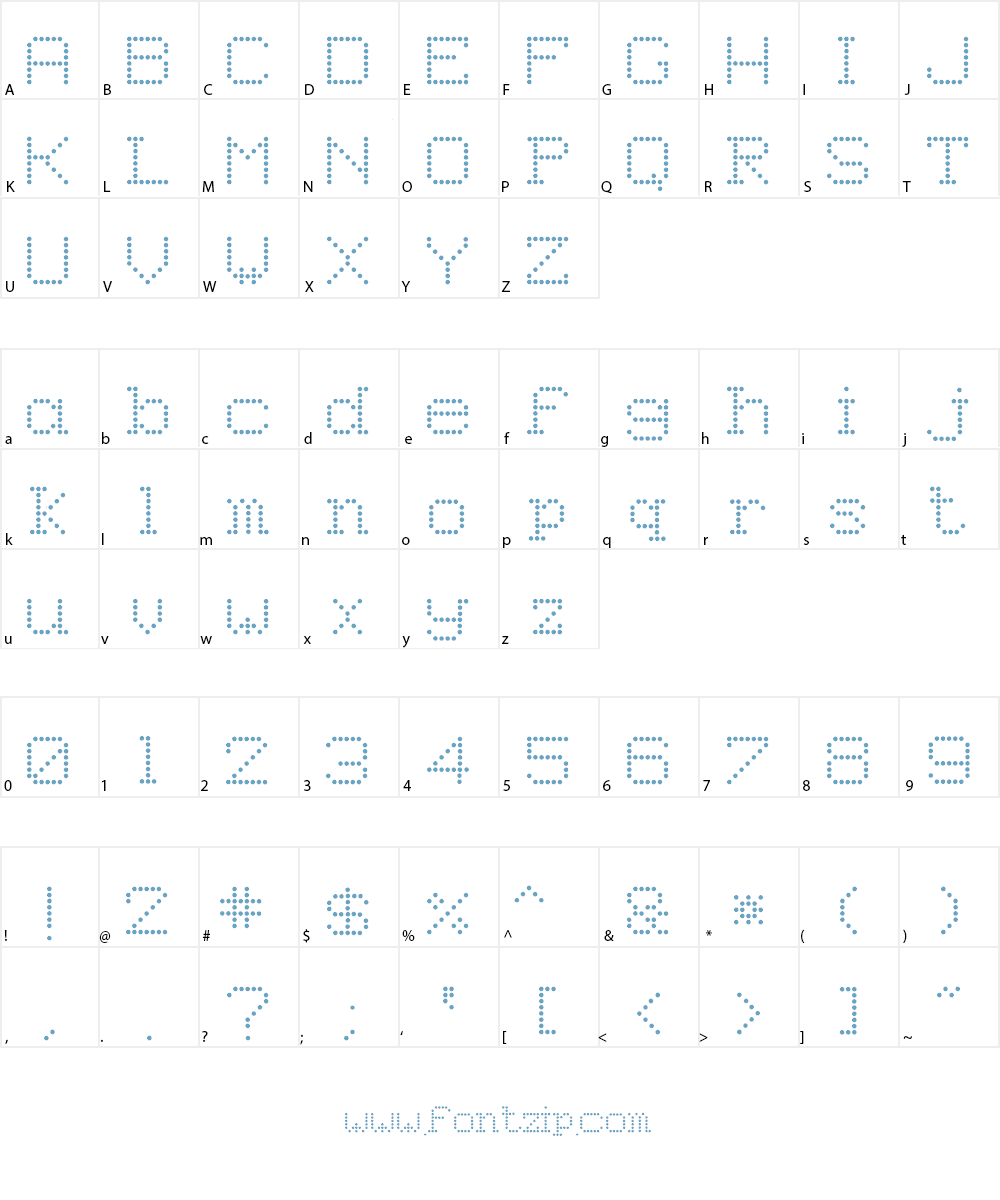
This font looks very much like the output of an old 8-Pin dot-matrix printer, like the Epson FX-80. Very interesting to re-create documents looking like "old" computers, or computerized bills.
Back in 1987, I was working with a now antique Apple IIe and a then brand new
Apple IIc, as well as an IBM-PC clone (Panasonic Senior Partner) on a project
that was to become MatchFont. That software allowed machines of the time to
use fonts on dot-matrix printers, such as the good old Epson FX-80 I had then,
or the Apple Imagewriter. Eventualy, MatchFont helped people to use fonts on
these rather slow printers, and to get unusual fonts, at least for these
character-based computers. Eventually, the printers got even slower, but the
results where, at least at the time, better than even a Mac.
To-day, these technological monsters are gone. But I still remember the long
hours passed on the 9x18 matrix of the MatchFont editor. I then created some
great marvels, such as Japanese, or a sideways font.
8-Pin Matrix reminded me of that good'ol time, as while creating it, I found
back the familiar limitations of that format.
I hope you will find interesting this little font, looking very much like the
FX-80 outputs.
As this is meant to really look like the output from an old dot-matrix
printer, do not be surprised if you do not find kerninbg or proportional
characters spacing. All this was still science fiction, at the time. So, this
font offers monospace, and no kerning. Incidently, it means it will work as
well a did, before, monospaced printed output, especially for numbers and
spreadsheet.